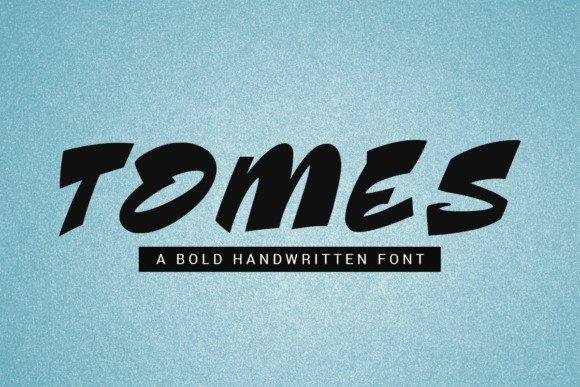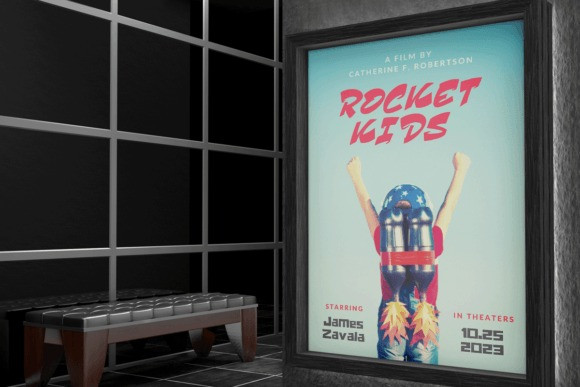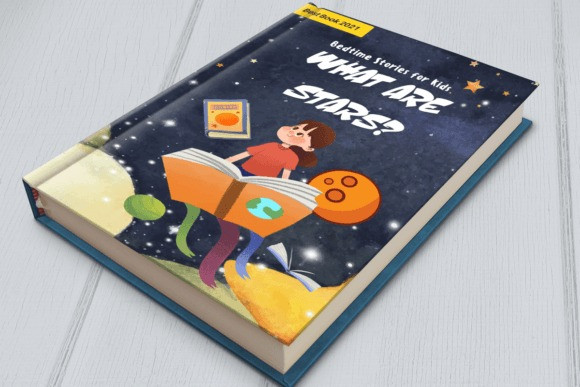
Tomes Font
Tomes is a chunky, lettered font that is bold yet whimsical. It’s bold, yet friendly enough to put it anywhere you want to add some extra fun. This font is perfect for t-shirts, craft projects and the sky’s the limit really!